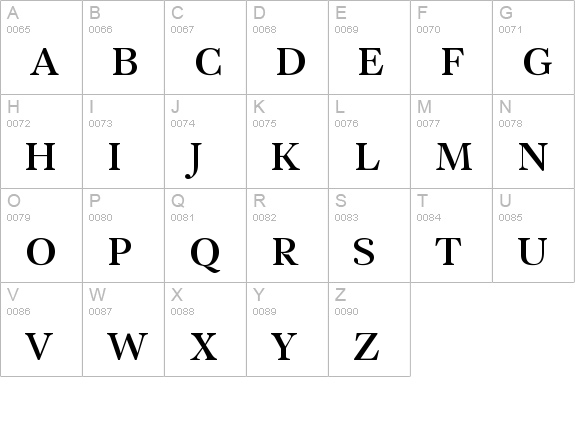
PFRegalTextPro-Medium is a balanced, medium-weight variant in the PFRegalTextPro typeface family \xE2\x80\x94 well suited to sub-headlines, navigation, and balanced editorial work.
PFRegalTextPro-Medium is a sophisticated and elegant font that exudes a sense of timeless beauty and classic charm. With its perfectly balanced letterforms and graceful curves, this font is ideal for adding a touch of luxury to any design project. The medium weight of PFRegalTextPro-Medium strikes the perfect balance between readability and style, making it a versatile choice for a wide range of applications. And the best part? PFRegalTextPro-Medium is available for free download at FontsMarket.com, allowing you to access this premium font without any cost. Whether you're working on a branding project, editorial design, or any other creative endeavor, PFRegalTextPro-Medium is sure to elevate your work with its refined aesthetic and impeccable craftsmanship. Download it today and add a touch of sophistication to your designs.